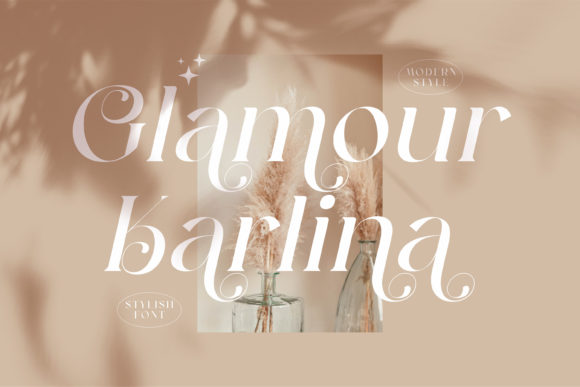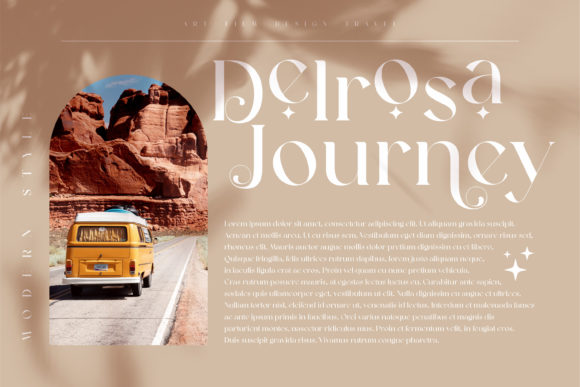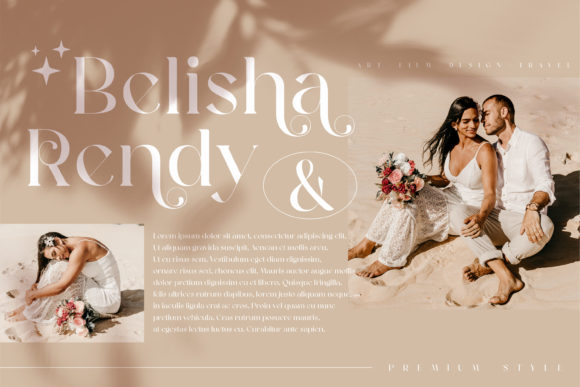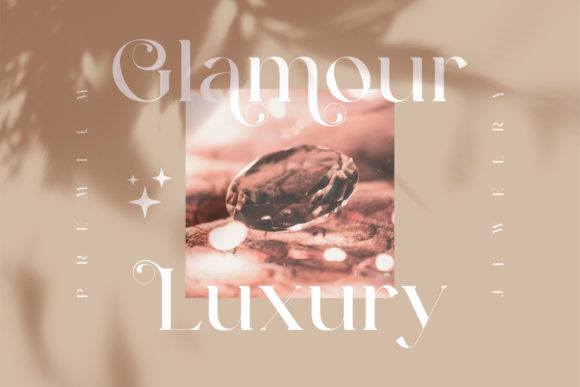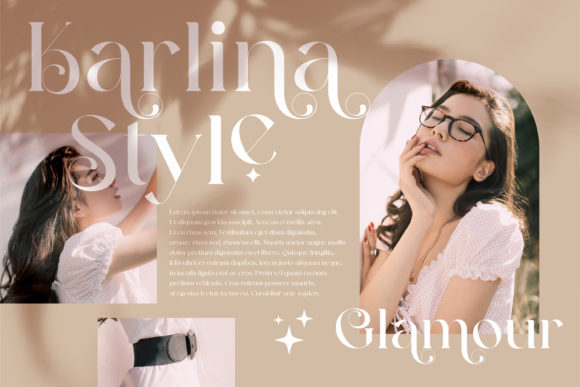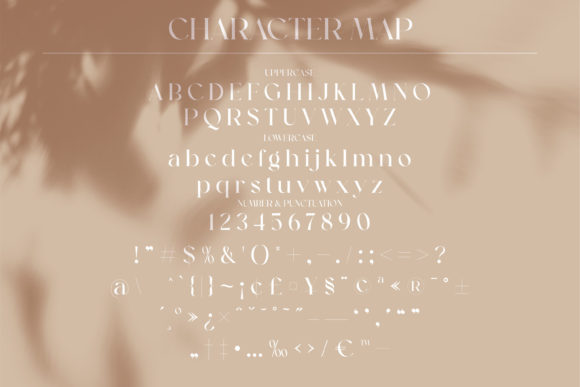
Glamour Karlina Font: Elevate Your Designs with Elegance and Sophistication
In the world of typography, fonts play a crucial role in conveying the tone and personality of a brand. For designers and crafters seeking to add a touch of luxury and sophistication to their work, the Glamour Karlina font is an exceptional choice. This modern and classic serif font boasts a unique blend of solemnity and style, making it perfect for high-end logos, exquisite brands, fashion branding, quotes, and more.
What Makes Glamour Karlina Stand Out?
Glamour Karlina’s distinctiveness lies in its elegant serif design, which exudes refinement and poise. The font’s classic roots are subtly infused with modern elements, resulting in a sophisticated and versatile typeface. Whether you’re aiming to create a luxurious brand identity, craft a stunning logo, or add a touch of glamour to your fashion designs, Glamour Karlina is sure to impress.
Key Features of Glamour Karlina Font
- PUA Encoded: Glamour Karlina is PUA (Private Use Area) encoded, allowing easy access to all glyphs and swashes. This feature makes it simple to incorporate the font’s beautiful details into your designs.
- Modern and Classic Serif Design: The font’s unique blend of modern and classic elements creates a distinctive and sophisticated look that’s perfect for high-end branding and design projects.
- Multipurpose: Glamour Karlina is an incredibly versatile font, suitable for a wide range of applications, including logos, branding, fashion design, quotes, and more.
Perfect for Luxury Brands and Designers
Glamour Karlina is an ideal choice for luxury brands, designers, and crafters seeking to elevate their work with a touch of elegance and sophistication. The font’s refined design and classic roots make it perfect for:
- Luxurious Logos: Create stunning logos that exude luxury and sophistication with Glamour Karlina’s elegant serif design.
- Exquisite Brands: Establish a strong brand identity with a font that’s both refined and memorable.
- Fashion Branding: Add a touch of glamour to your fashion designs and branding with Glamour Karlina’s sophisticated typeface.
- Quotes and Typography: Use Glamour Karlina to create beautiful, eye-catching quotes and typography that showcase your work.
Tips for Using Glamour Karlina Font
To get the most out of Glamour Karlina, consider the following tips:
- Experiment with Font Sizes: Glamour Karlina’s elegant design looks stunning in a variety of font sizes. Experiment with different sizes to find the perfect fit for your design.
- Pair with Complementary Fonts: Combine Glamour Karlina with complementary fonts to create visually appealing typography.
- Take Advantage of Swashes: Use Glamour Karlina’s swashes to add a touch of elegance and sophistication to your designs.
In conclusion, Glamour Karlina is an exceptional font that’s sure to elevate your designs with its unique blend of elegance and sophistication. With its PUA encoding, modern and classic serif design, and multipurpose versatility, this font is perfect for luxury brands, designers, and crafters seeking to create stunning work. Whether you’re looking to create luxurious logos, exquisite brands, or add a touch of glamour to your fashion designs, Glamour Karlina is an excellent choice.